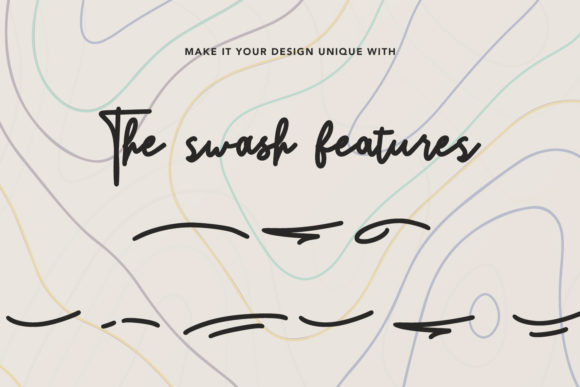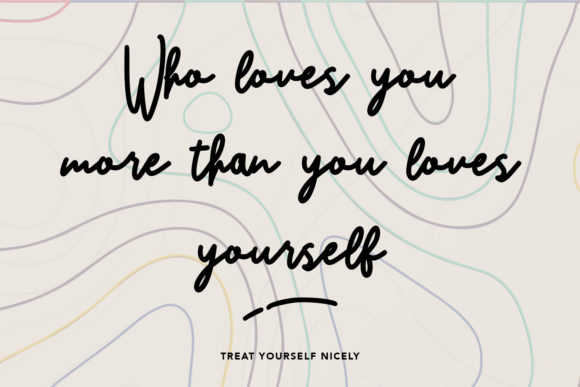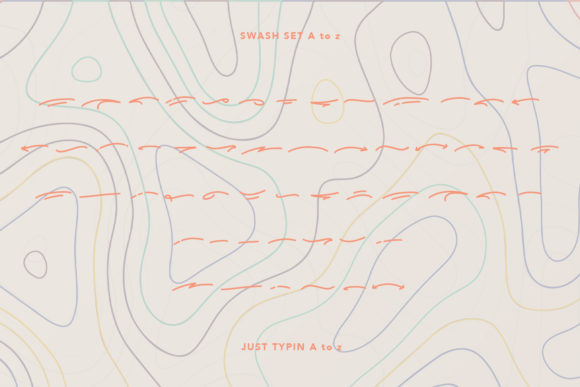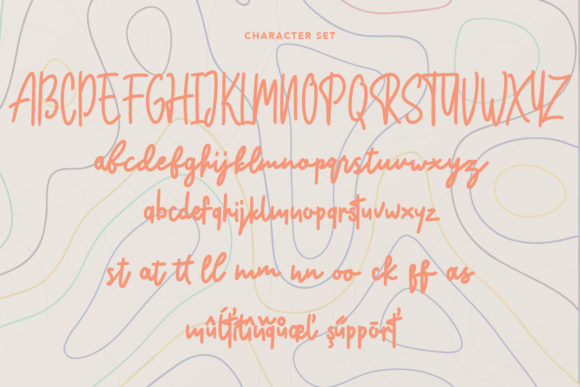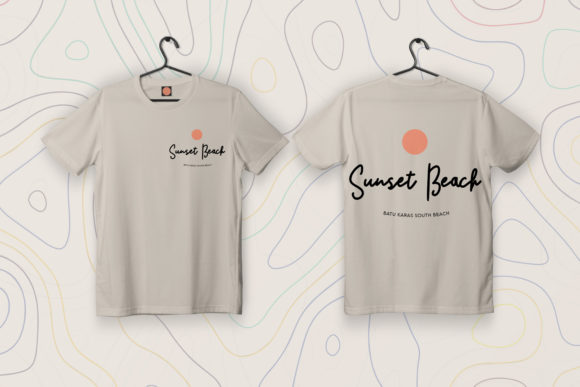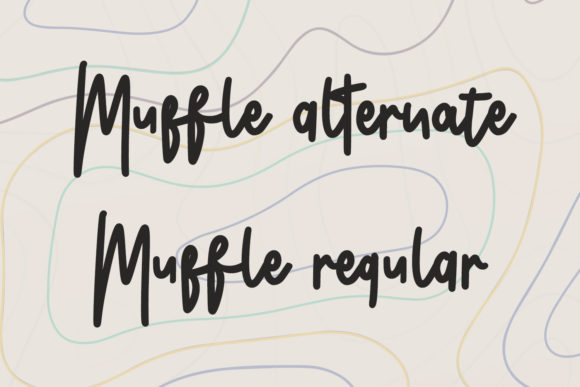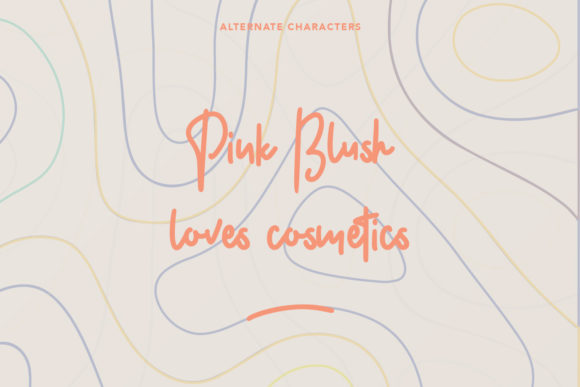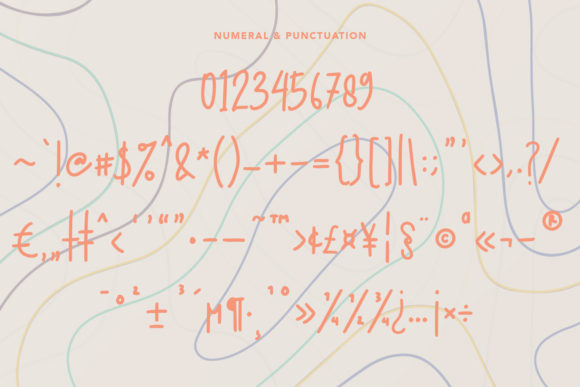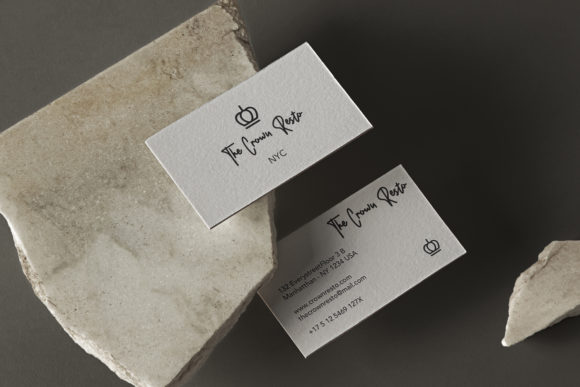
Muffle Font
About Muffle Font
Muffle is a versatile and adaptable handwritten font that can be used for a wide range of purposes. Its simplicity and clean design make it suitable for various applications, including logos, wedding invitations, headings, t-shirts, letterheads, signage, labels, news, posters, badges, and more.
One of the key features of Muffle is its simplicity. The font’s clean and legible letterforms make it easy to read and suitable for both small and large sizes. Whether you’re designing a logo that needs a subtle and refined touch or creating headings for a publication that require clarity and readability, Muffle can fulfill those needs.
The adaptability of Muffle allows it to blend seamlessly with different design styles. Its neutral and understated appearance makes it suitable for both modern and traditional designs. It can complement a minimalist aesthetic with its clean lines, or add a touch of elegance to more ornate and decorative designs.
Muffle’s versatility extends to various media and platforms. It can be used in print materials such as wedding invitations, letterheads, and posters, as well as digital platforms like websites, social media graphics, and digital ads. Its legibility and simplicity ensure that your message is effectively conveyed across different mediums.
With its wide range of possible applications, Muffle offers flexibility and convenience. Its simple and adaptable nature makes it a valuable addition to your font library, allowing you to use it for multiple projects without sacrificing cohesiveness or style.
In summary, Muffle is a simple and adaptable handwritten font suitable for a variety of purposes. Its clean design, legibility, and adaptability make it a versatile choice for logos, wedding invitations, headings, t-shirts, letterheads, signage, labels, news, posters, badges, and more. With Muffle, you can achieve a clean and professional look while maintaining readability and visual appeal in your designs.